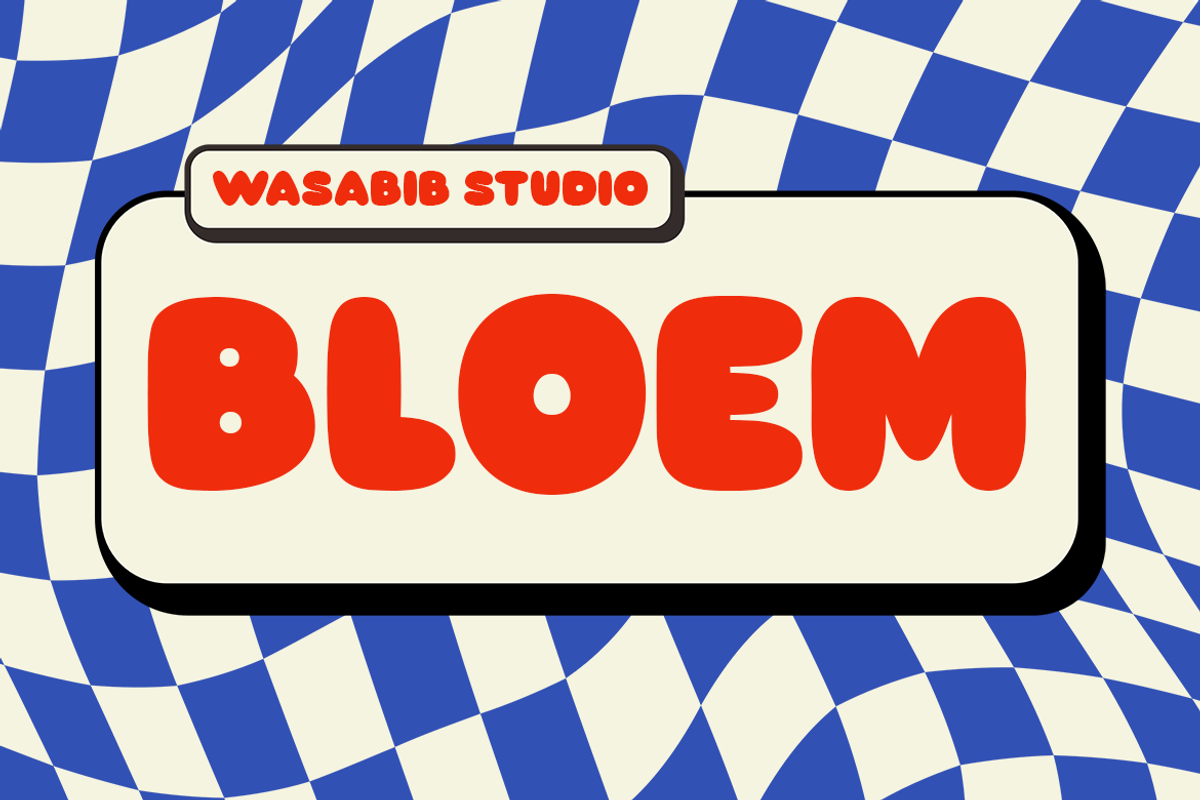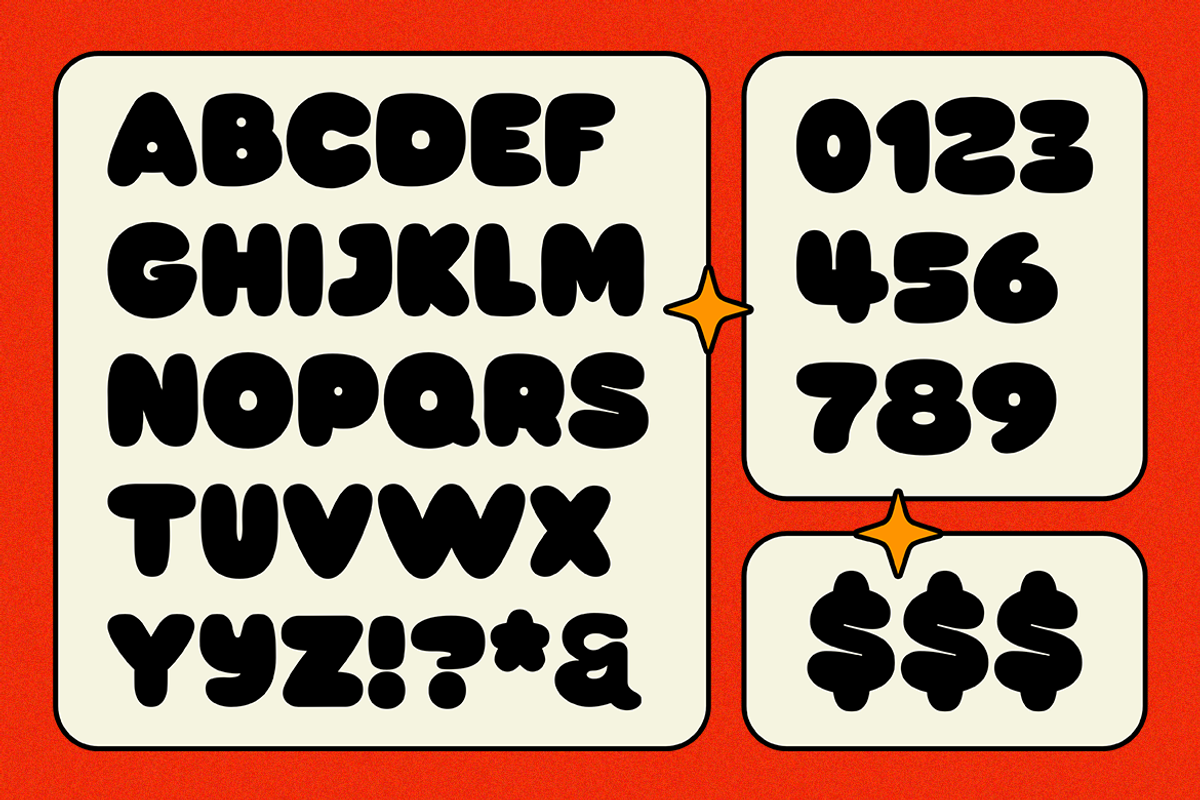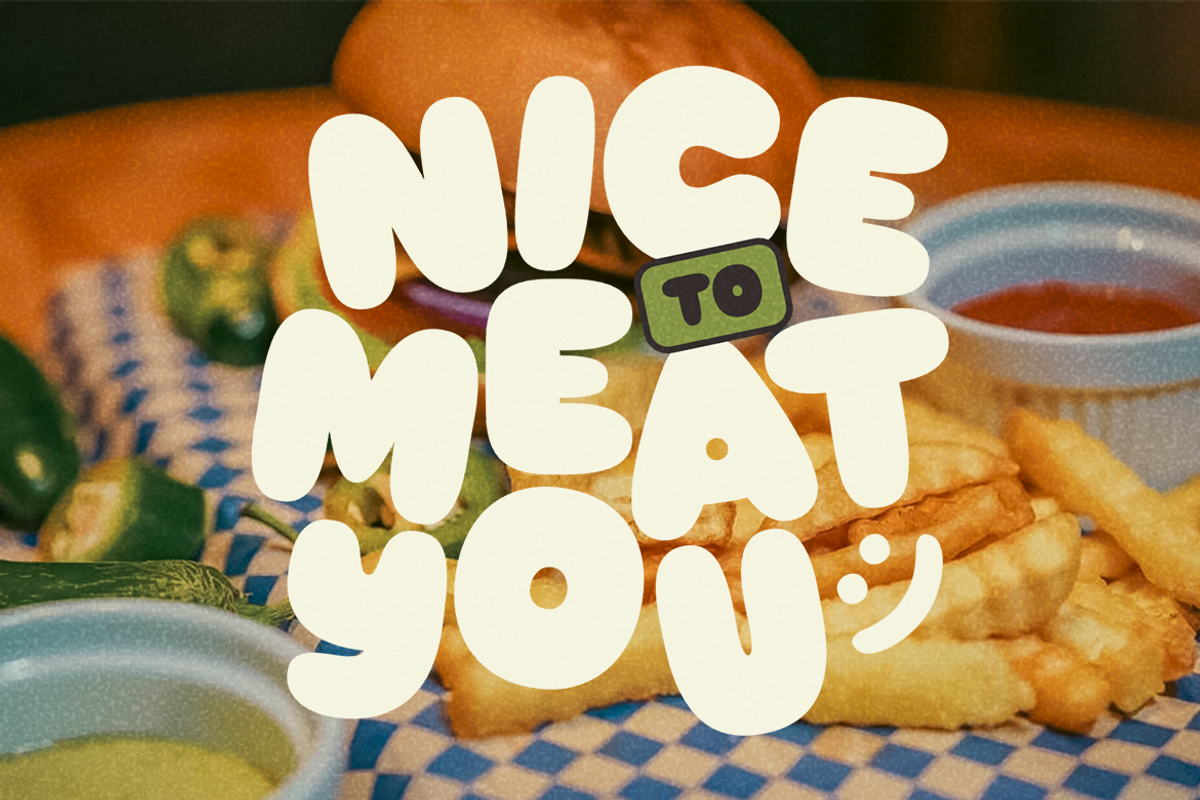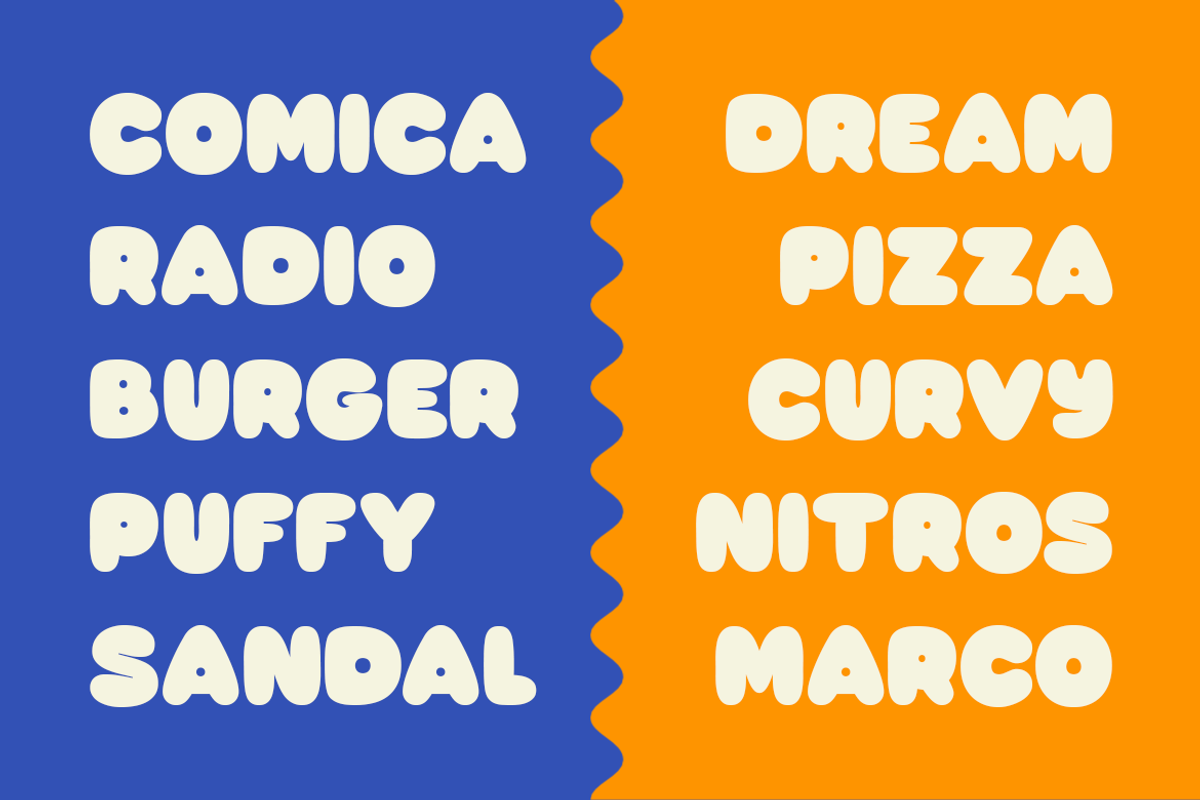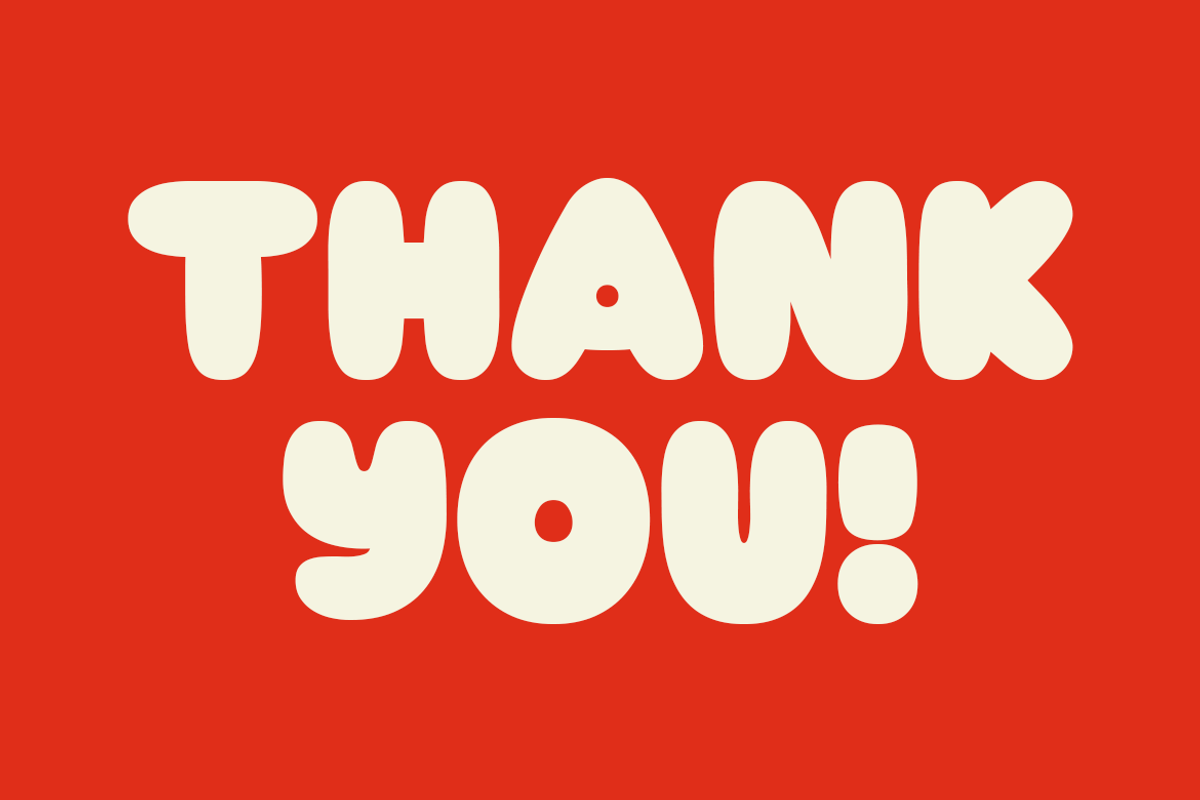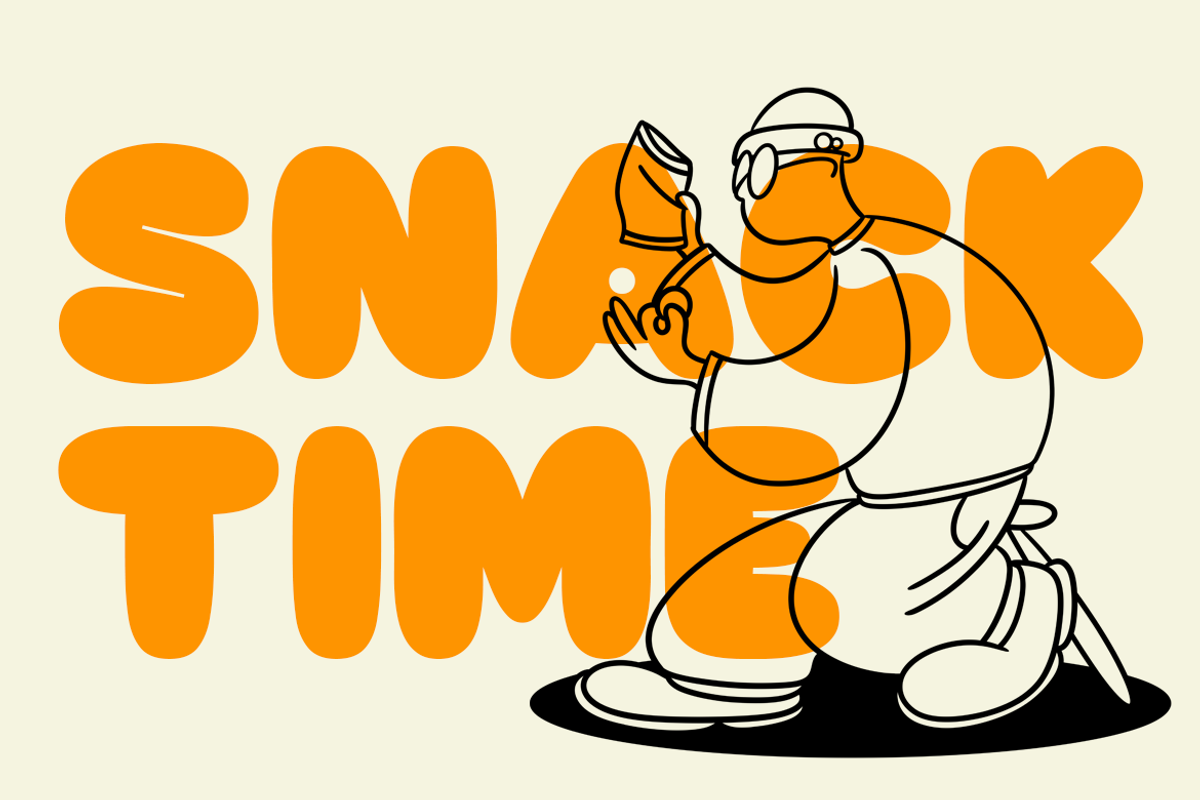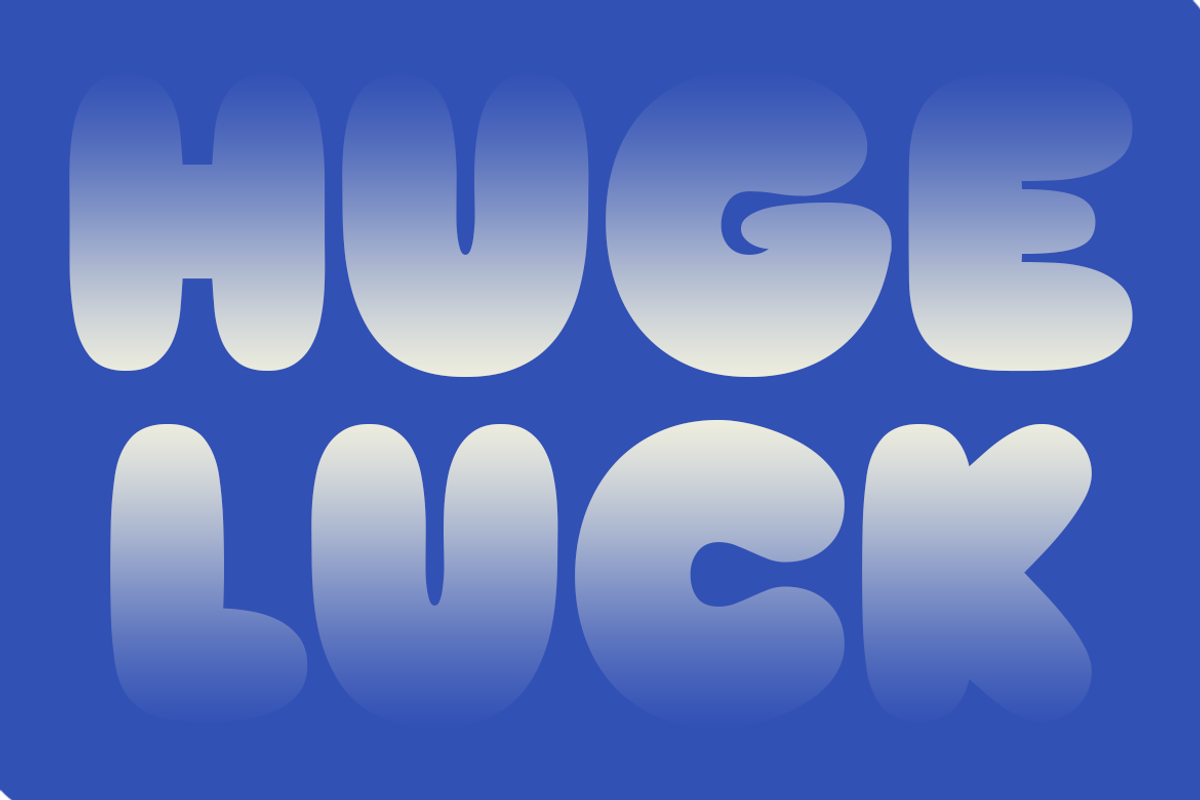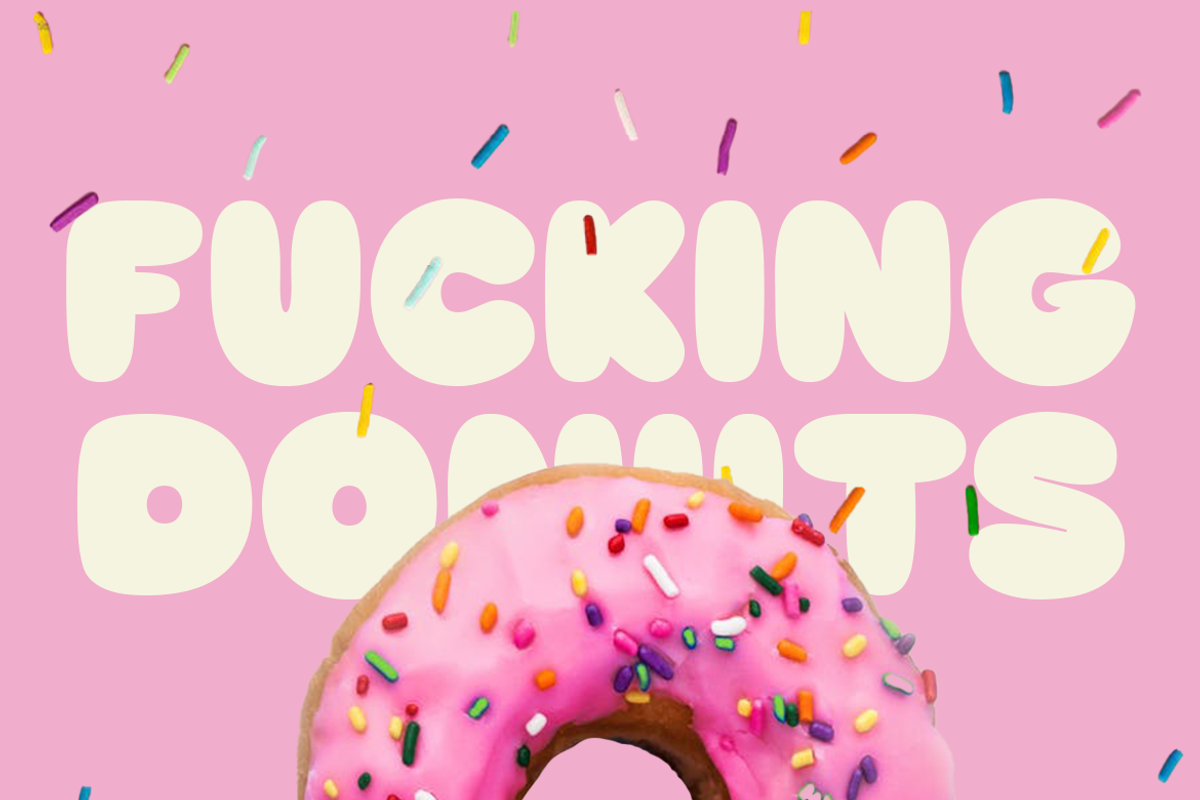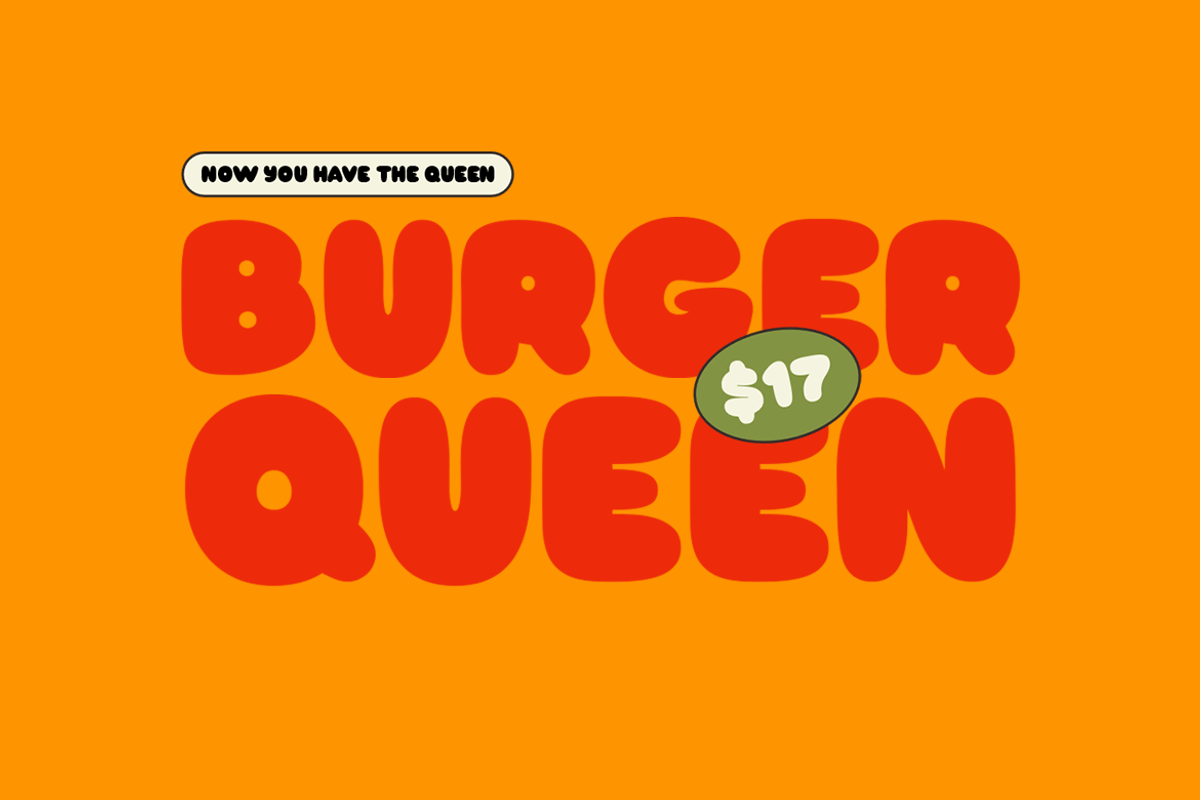
WS Bloem
WS Bloem is a captivating display font characterized by its robust letterforms with soft rounded edges. This design choice lends the font a charming and playful personality, making it ideal for adding warmth and character to various projects. Its boldness ensures readability even at larger sizes, while the roundedness softens the overall aesthetic, creating an inviting and approachable feel. WS Bloem excels in applications like branding, packaging, and social media graphics where a touch of personality is desired without sacrificing clarity.